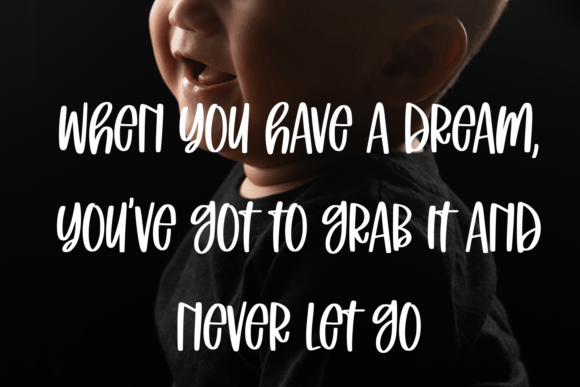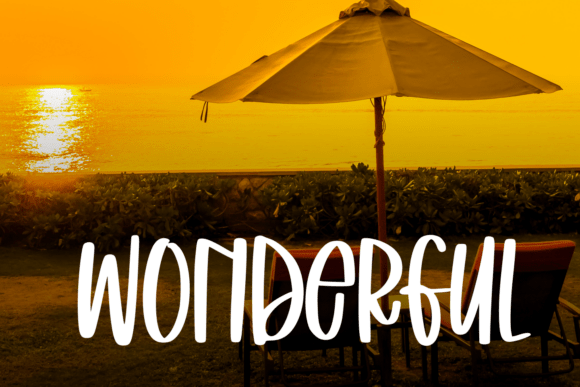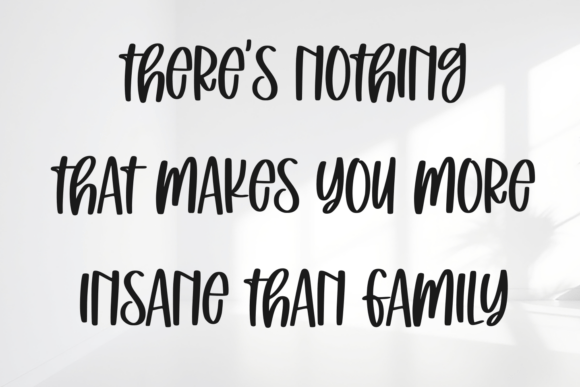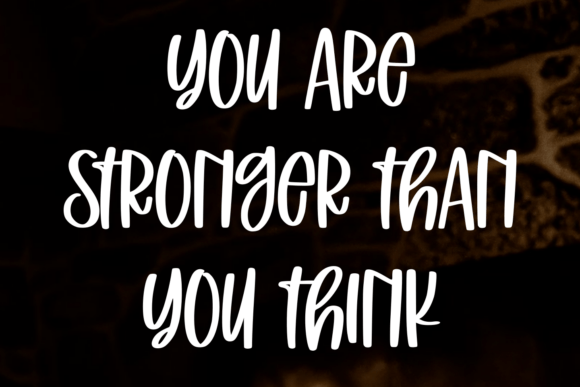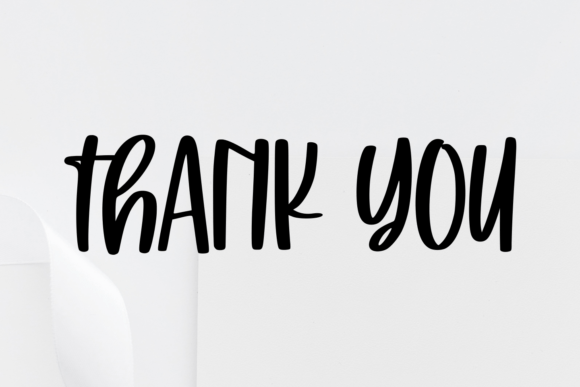
Introduction to Murphie Font
Murphie is a playful handwritten typeface filled with cheerful energy and spontaneous character.
Its bouncy letterforms and lighthearted rhythm give every word a sense of fun, as if written in a happy moment The strokes feel casual yet balanced, creating a look thatโs expressive without being messy.